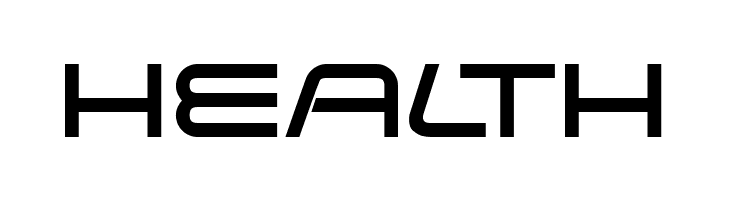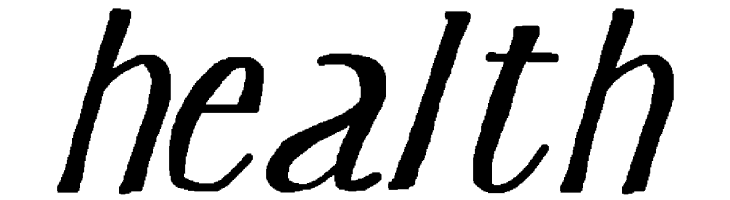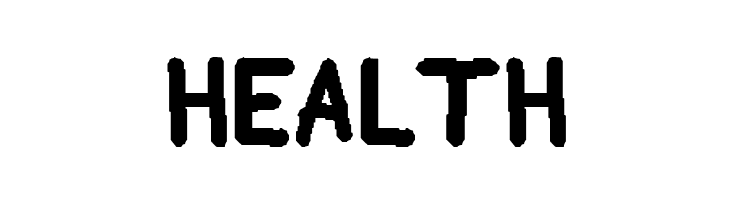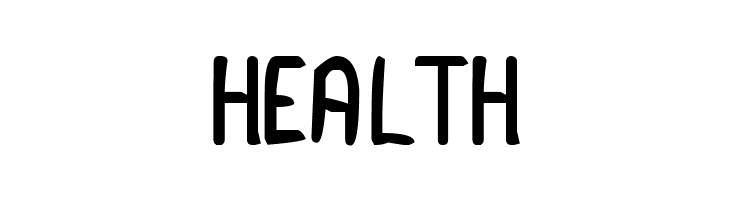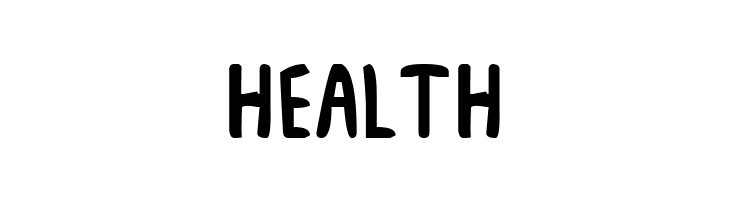
TinkerBell Font
Dieter Steffmann
A whimsical, fairy-tale-inspired font with elegant curls and swirls.
Terminator Genisys Font
Måns Grebäck
A bold, futuristic font with sharp angles and a geometric structure.
Slugterra Font
HackFonts - hackfonts.blogspot.com.co/
A bold, geometric font with strong angles and a modern look.
Salt Font
TypeSETit
A playful, bold font with rounded edges and an elegant script style for lowercase letters.
Matty Font
HackFonts - hackfonts.blogspot.com.co/
A playful, bold handwritten font with thick, rounded strokes.
Home Font
HackFonts - hackfonts.blogspot.com.co/
A playful, bold font with rounded edges and a hand-drawn feel.
Bamtang Alpaca Feroz Fajadita Font
HackFonts - hackfonts.blogspot.com.co/
A bold, geometric font with a modern and edgy style.
Princeps Font
StereoType
Playful, bold hand-drawn sans-serif with rounded edges.
Declaration Font
A futuristic, geometric font with clean lines and a modern aesthetic.